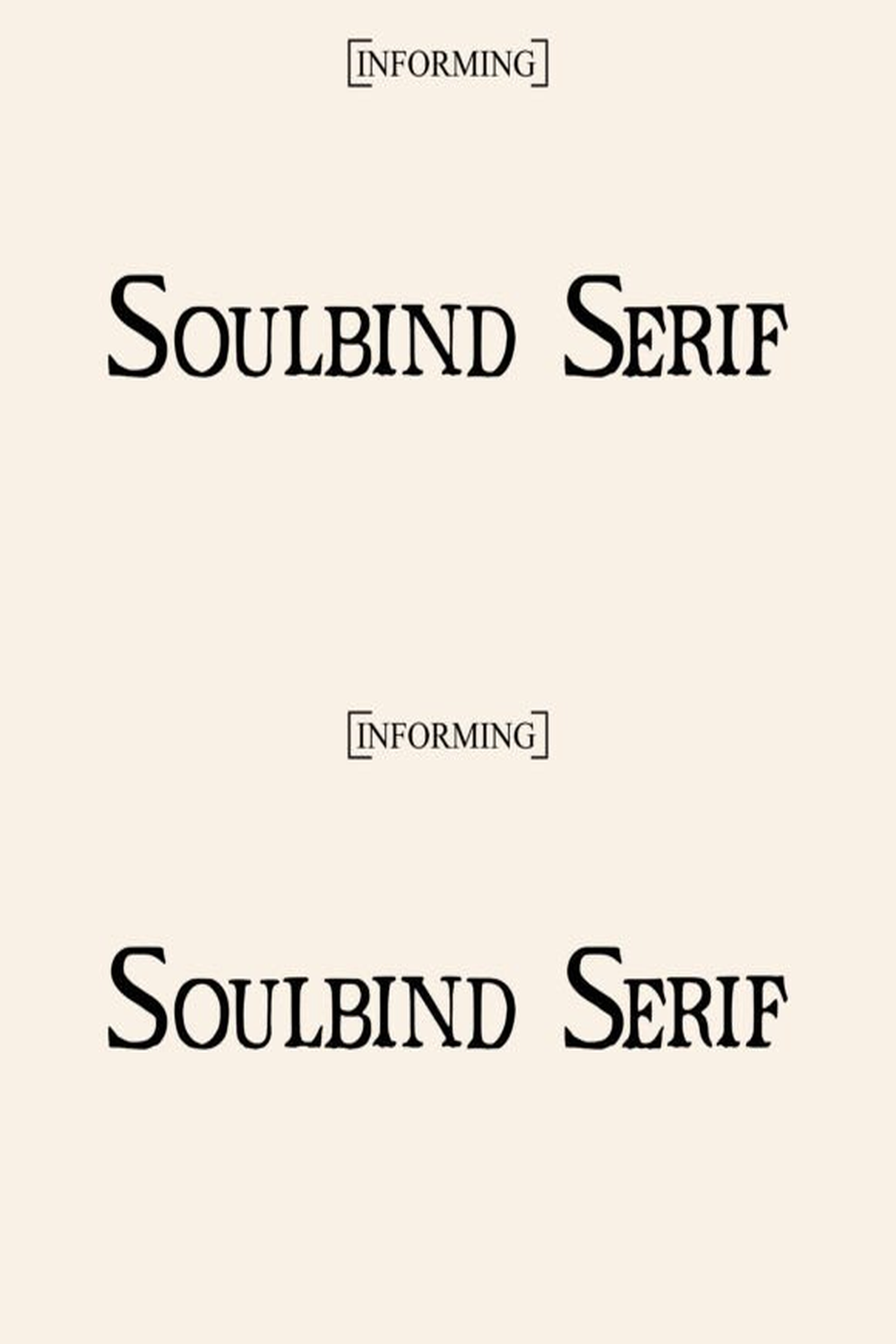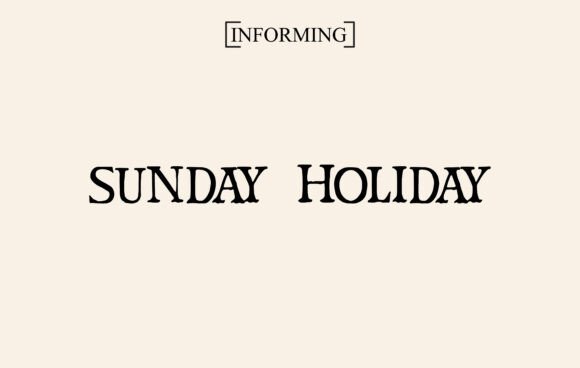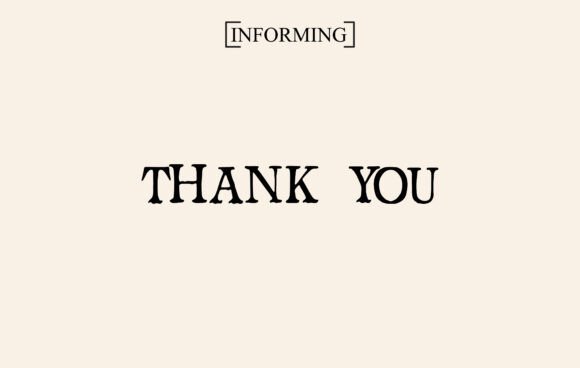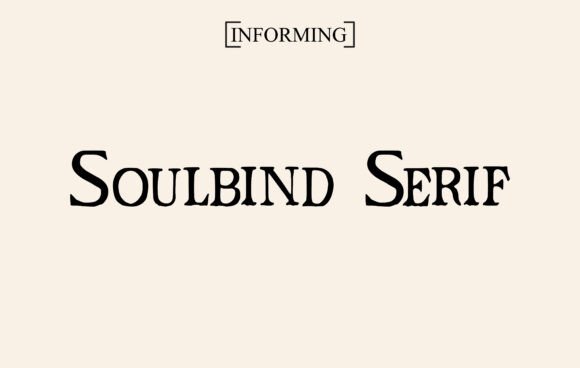
Soulbind Serif Font
About the Soulbind Serif Font
The Soulbind Serif Font offers a perfect balance of form and function for your design needs. Soulbind Serif is a mystical and slightly distressed serif typeface with handcrafted charm. Its organic curves and subtly uneven strokes give it a fantasy-inspired, storybook appeal. Perfect for fantasy book covers, RPG titles, and folklore-themed projects, Soulbind Serif brings a touch of ancient magic to your typography.
Soulbind Serif Font Usage Examples